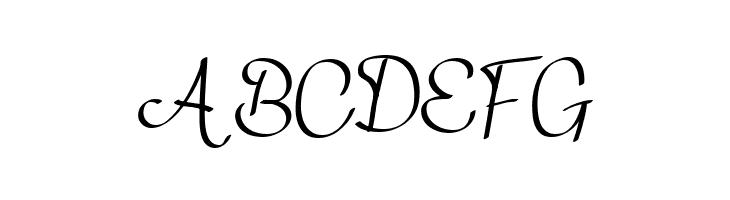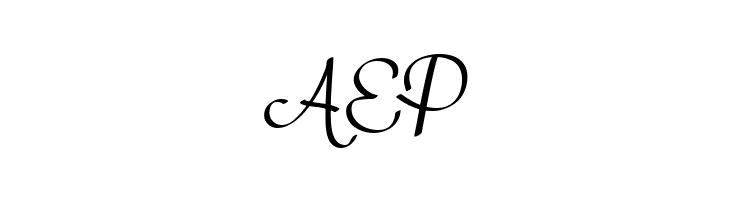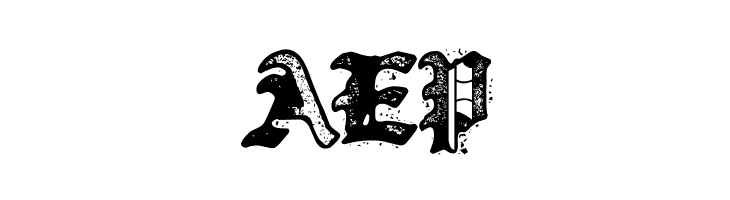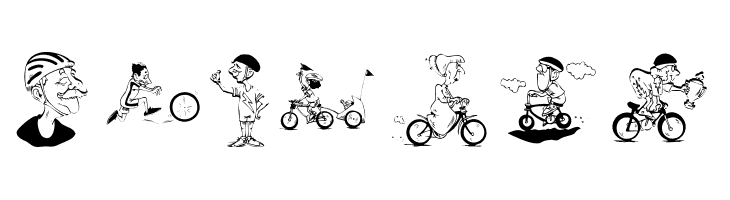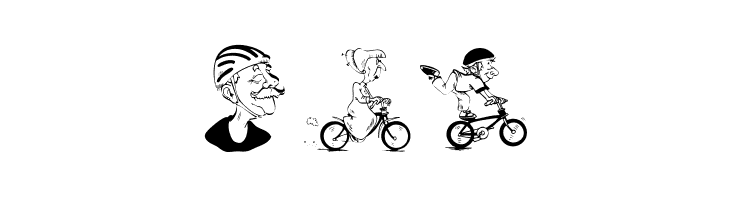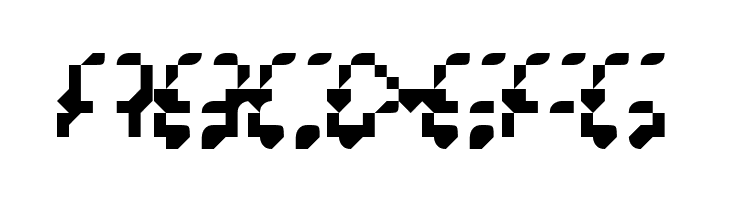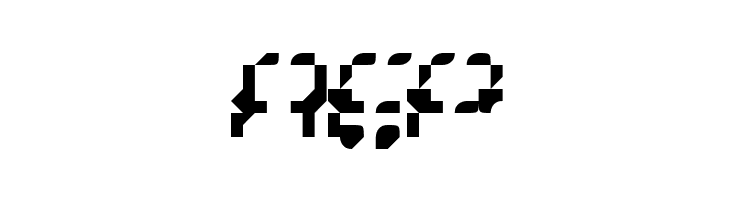
Cartoonish, bike-themed decorative font with hand-drawn characters.
A flowing, cursive script font with elegant, connected strokes.
A bold, distressed blackletter font with a gothic, vintage aesthetic.
A bold, fragmented, and pixelated decorative font with high contrast.
A playful, rounded, and informal font with a handwritten feel.
A bold, geometric font with a futuristic outline style.
A bold, industrial font with a distressed, eroded effect for a rugged look.
A pixelated, retro video game-inspired font with a decorative, nostalgic style.